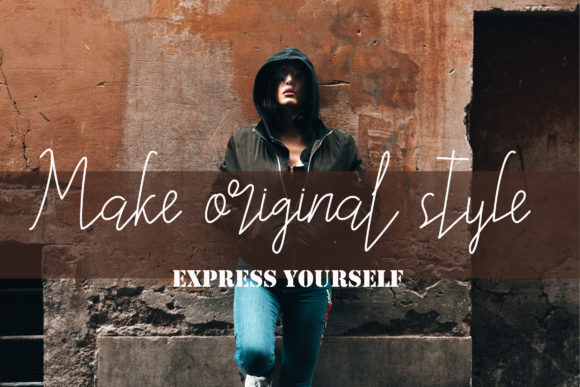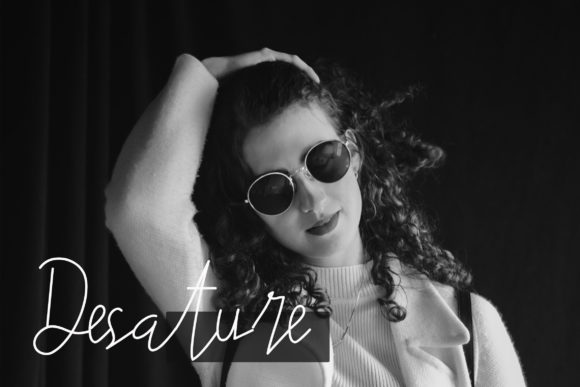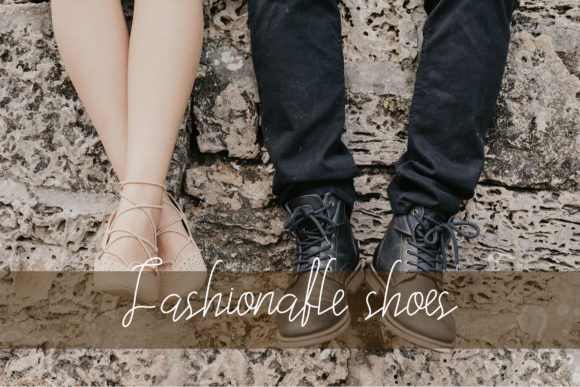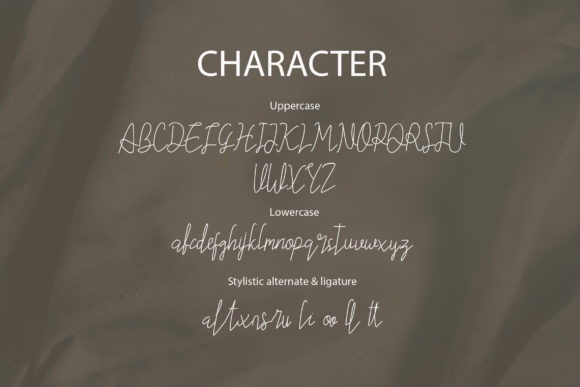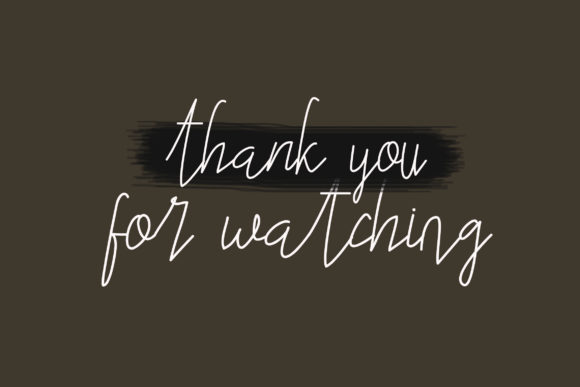
Introduction to Nartalia Font
Nartalia is a modern and elegant handwritten font with an undeniable charm.
Fall in love with its authentic feel .
Key Features of Nartalia Font